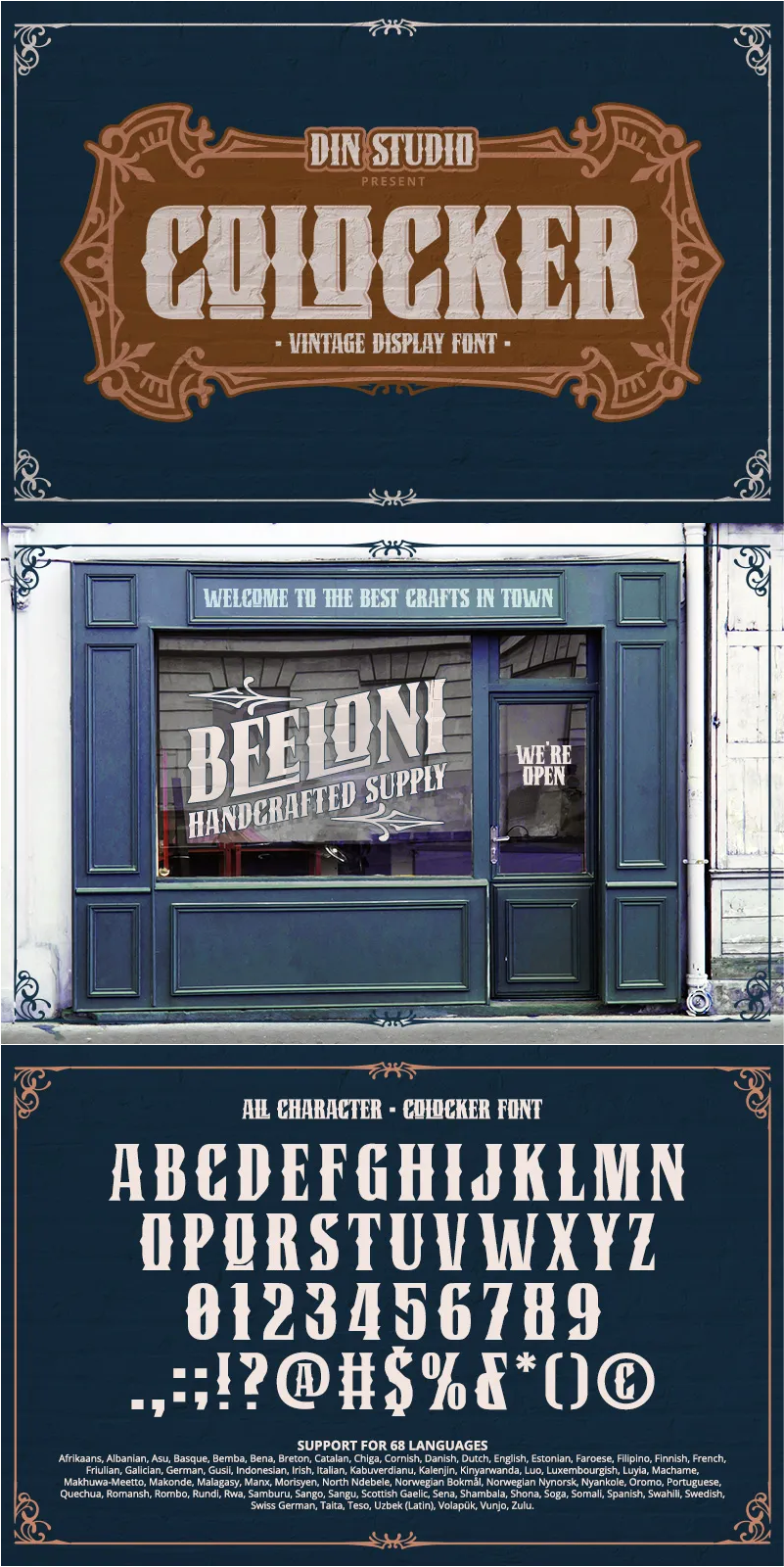
Colocker Font
About Colocker
Colocker – a robust display font that combines vintage charm with bold impact. Designed in uppercases with an exceptionally thick weight, Colocker commands attention with its strong presence. The consistent letter proportions and low contrast ensure a cohesive and balanced look, while the irregular, non-straight outlines add a touch of handcrafted authenticity. Colocker also brings a powerful and nostalgic vibe to any creative project, making a lasting impression with its distinctive style. As an extra, this font gives ornaments.